26 Best Script Logo Fonts for Elegant & Retro Logo Designs
Script Logo Fonts are useful when a brand name needs personality, movement, and a custom handlettered feel. This collection is built for designers choosing script styles for logos, packaging, merch, wedding marks, social graphics, labels, and short display titles.
Elegant & Signature Script Logo Fonts
These refined scripts use graceful loops, thin-to-medium strokes, and signature-style movement for premium logos, fashion marks, wedding branding, and personal identities.
Billiard Font
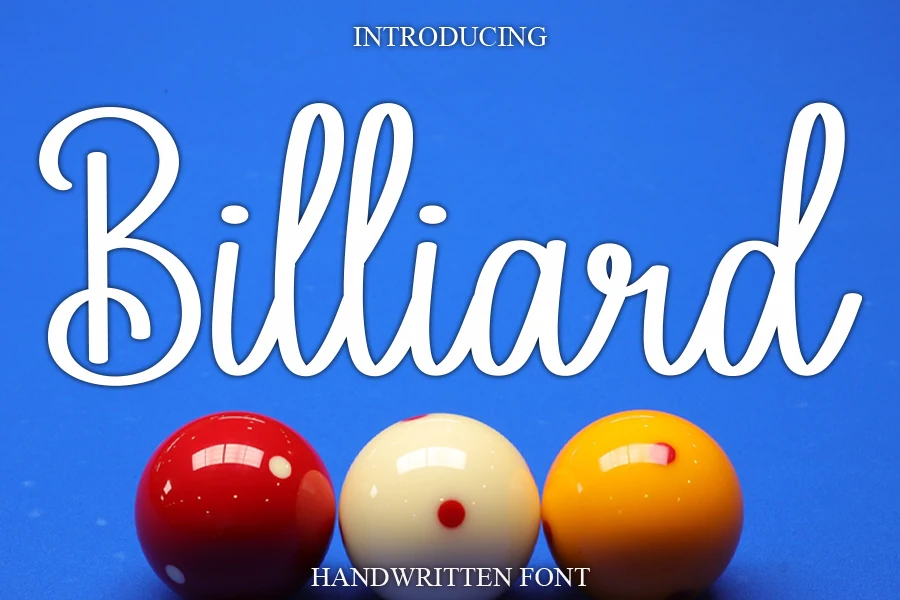
Best For: logos, wedding designs, invitations, fashion branding
Billiard Font has a smooth cursive rhythm with slim upright stems, rounded joins, and tall looping ascenders that give the wordmark a soft but polished profile. The strokes stay even enough to read cleanly, while the oversized capitals add the decorative pull expected from Script Logo Fonts.
Use it where the lettering can act as the main signature: logos, wedding stationery, greeting cards, fashion marks, or promotional headers. Its connected forms need moderate letter spacing rather than tight tracking, and the lighter stroke contrast works best against calm backgrounds or with a shadow that preserves the thin inner curves.
Rattesh Font
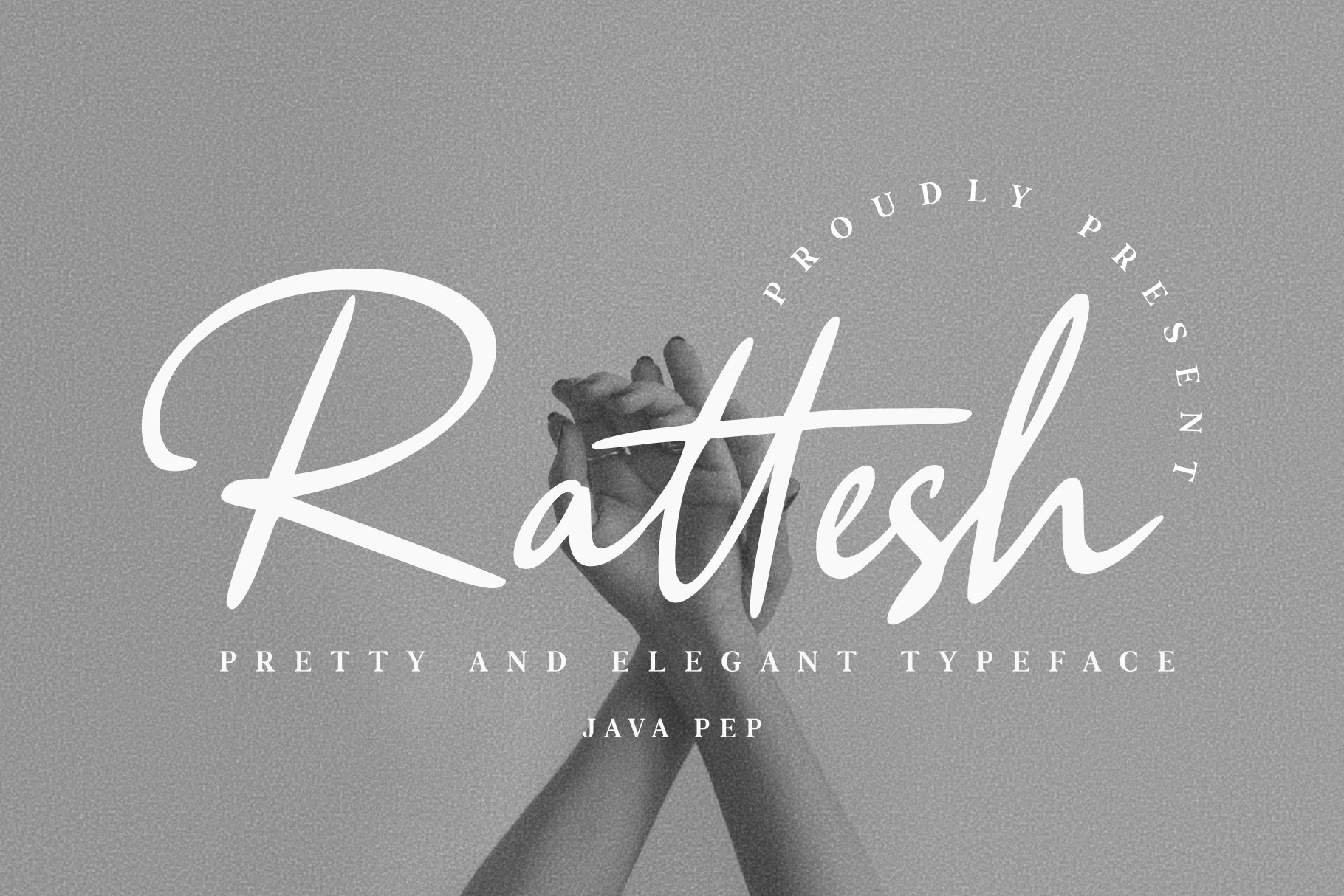
Best For: logos, packaging, headlines, quotes
Rattesh Font has a refined handwritten look with a broad opening capital, long sweeping strokes, and airy joins that keep the script graceful rather than crowded. The tall ascenders and extended crossbars give it the polished presence people expect from Script Logo Fonts, while the smooth rhythm helps short names feel composed and intentional.
Its ligatures and alternate forms make it easier to shape cleaner word combinations, which matters when a logo or headline needs a more custom flow. Keep it at display size and give the letters room to breathe—this style is strongest in short phrases, packaging, quotes, and branding where the elegant silhouette stays clear.
Bottega Font
Best For: logos, social media graphics, book covers, short phrases
Bottega Font has a bold classic script style with relaxed handwritten curves, a large looping capital, and a sweeping underline that gives the word a finished signature shape. Its smooth joins and broad strokes make it useful for Script Logo Fonts where the mark needs warmth without losing readability.
The font is strongest in short titles, logo names, social posts, and book-cover lettering where the long descender can become part of the composition. Pair it with a plain sans or serif and keep the lower swash uncrowded, since that curve does much of the visual work.
Chasterlize Script Font
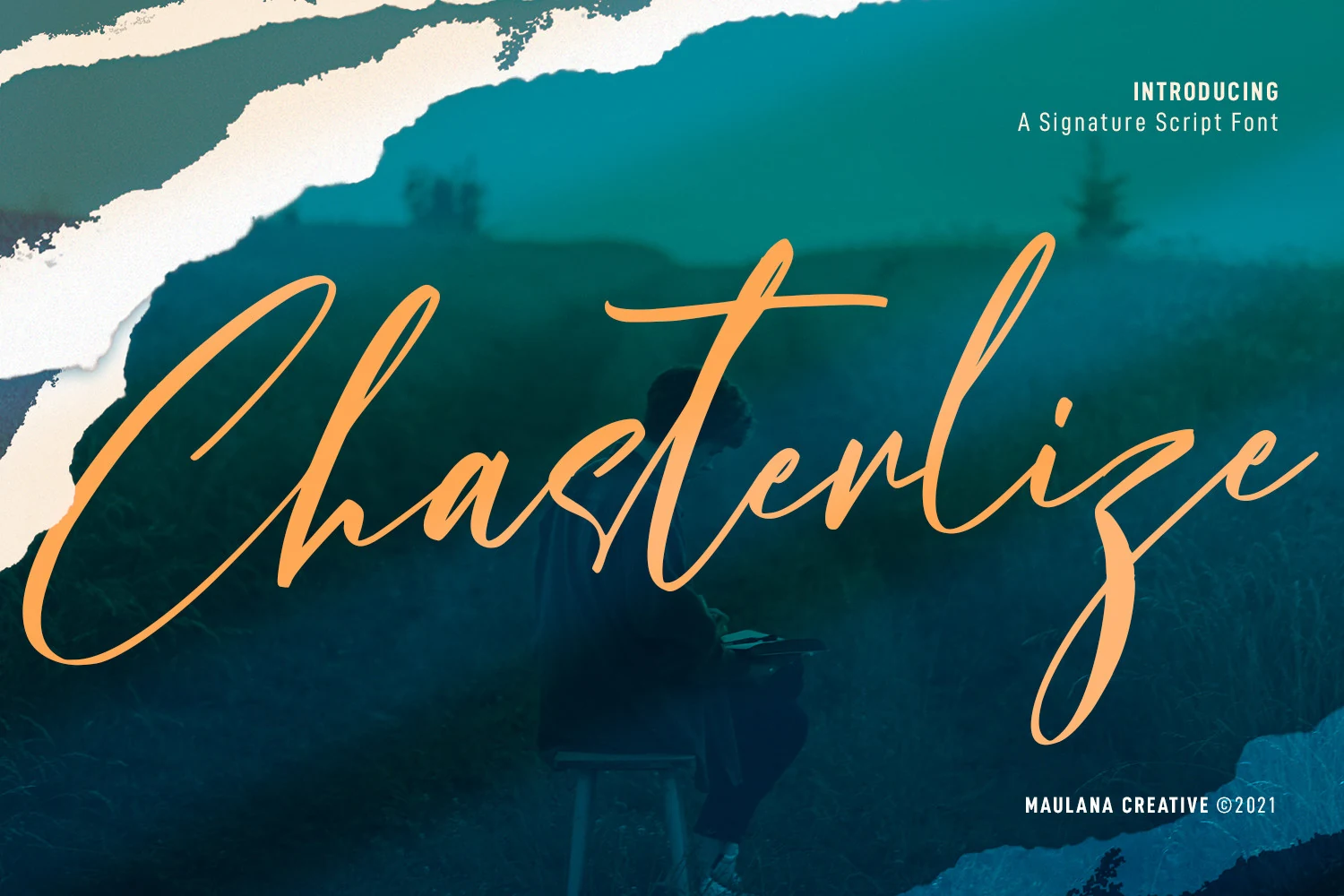
Best For: logos, social media graphics, book covers, short phrases
Chasterlize Script Font has a slanted signature style with long entry strokes, tall looped ascenders, and a narrow handwritten rhythm that feels loose but controlled. Its regular stroke contrast keeps the lettering clean, giving Script Logo Fonts a more personal and editorial look than heavier brush scripts.
The included ligatures and alternates help refine awkward joins, which is useful when shaping logo names, title graphics, or social media headers. Keep it large enough for the thin strokes to hold up, and leave wide side margins so the sweeping capital and extended final letters do not feel clipped.
Krispiest Signature Font
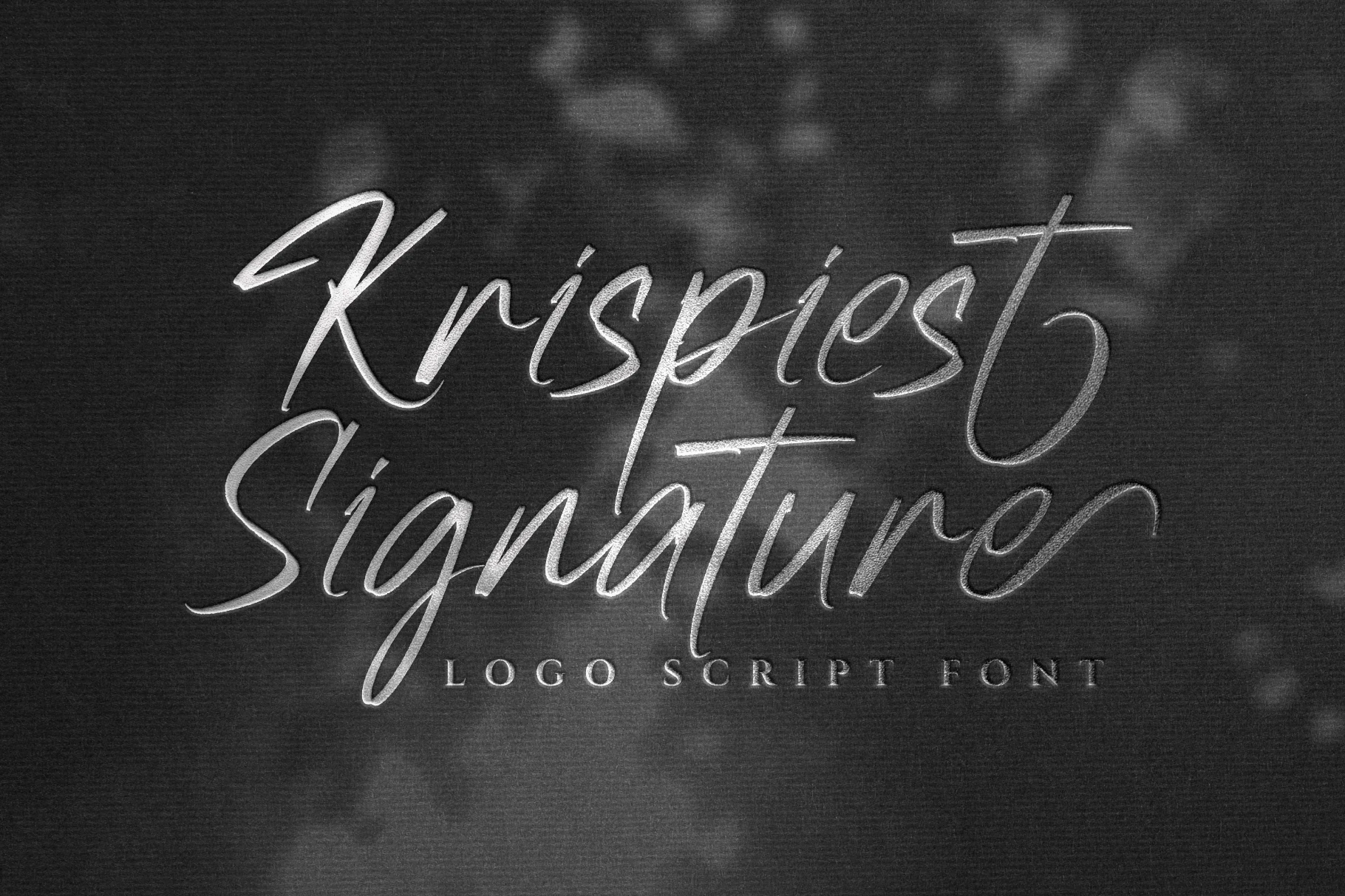
Best For: logos, branding, business cards, product labels
Krispiest Signature Font has a narrow handwritten rhythm with long entry strokes, high ascenders, and loose brush-like curves. The letters feel quick and personal rather than polished into formal calligraphy, which gives Script Logo Fonts a more direct signature-style presence.
Its all-caps construction keeps the word shape distinctive, but the thin strokes and extended swashes need clear contrast behind them. Use it where the logo or name can sit as the main mark, with tighter supporting text kept separate so the signature line does not lose its edge.
Black Pen Script Font
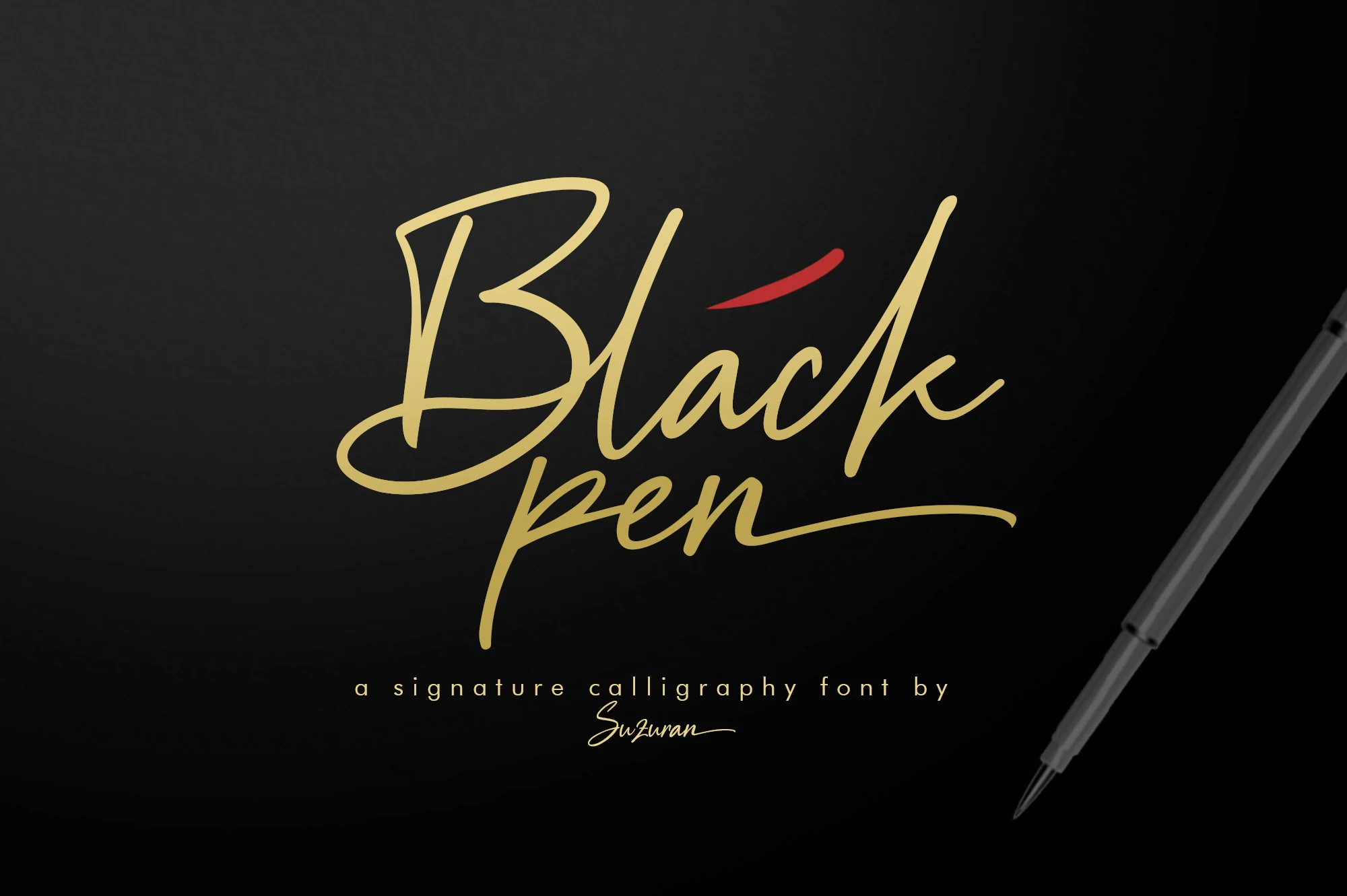
Best For: logos, personal branding, business cards, wedding designs
Black Pen Script Font has a loose signature structure with tall loops, quick angled strokes, and a sweeping baseline tail. The lettering feels handwritten rather than decorative-heavy, giving Script Logo Fonts a personal mark style that works well when the name itself needs to carry the identity.
Its open spacing keeps the thin calligraphy strokes readable, but the long swashes need room at the edges of a layout. Use it with strong background contrast and compact supporting type, especially for logos, posters, or wedding stationery where the script should remain the main visual line.
Bold & Brush Script Logo Fonts
These heavier handwritten scripts use broad strokes, dense curves, and strong contrast for packaging, posters, headline logos, and brands that need immediate visual weight.
Sarling Font
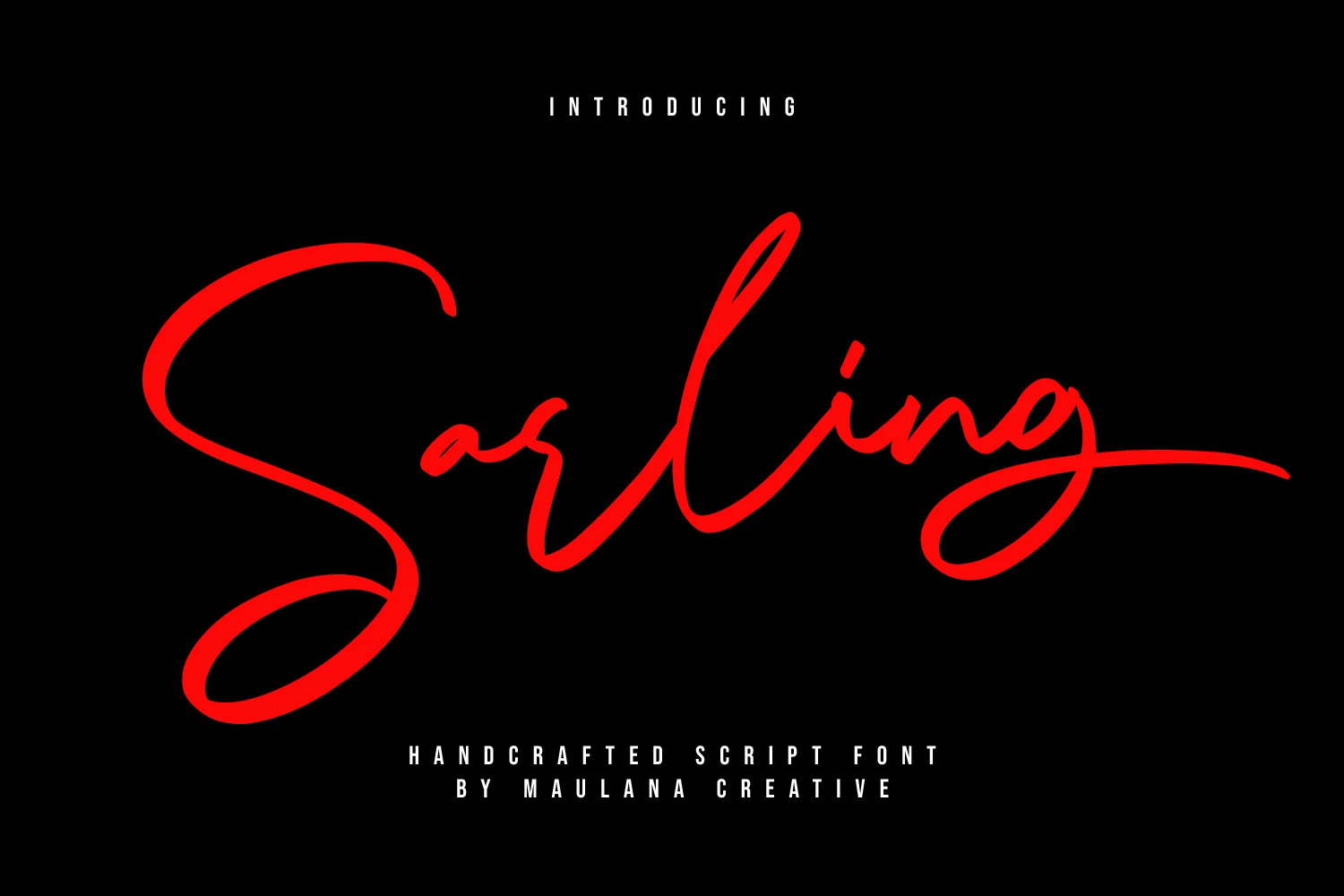
Best For: logos, social media graphics, book covers, headlines
Sarling Font is a loose monoline script with a fast signature motion, oversized entry swashes, and narrow connecting strokes that make the word feel fluid and dramatic. Its high, looped ascenders and extended baseline strokes give Script Logo Fonts a more personal, handwritten edge without turning the letterforms heavy.
Use it for logo marks, title cards, book covers, and social media headers where one word can carry the composition. The long swashes need generous horizontal space, so avoid tight containers and pair it with compact secondary text to keep the hierarchy clean.
Antique Vintage Font
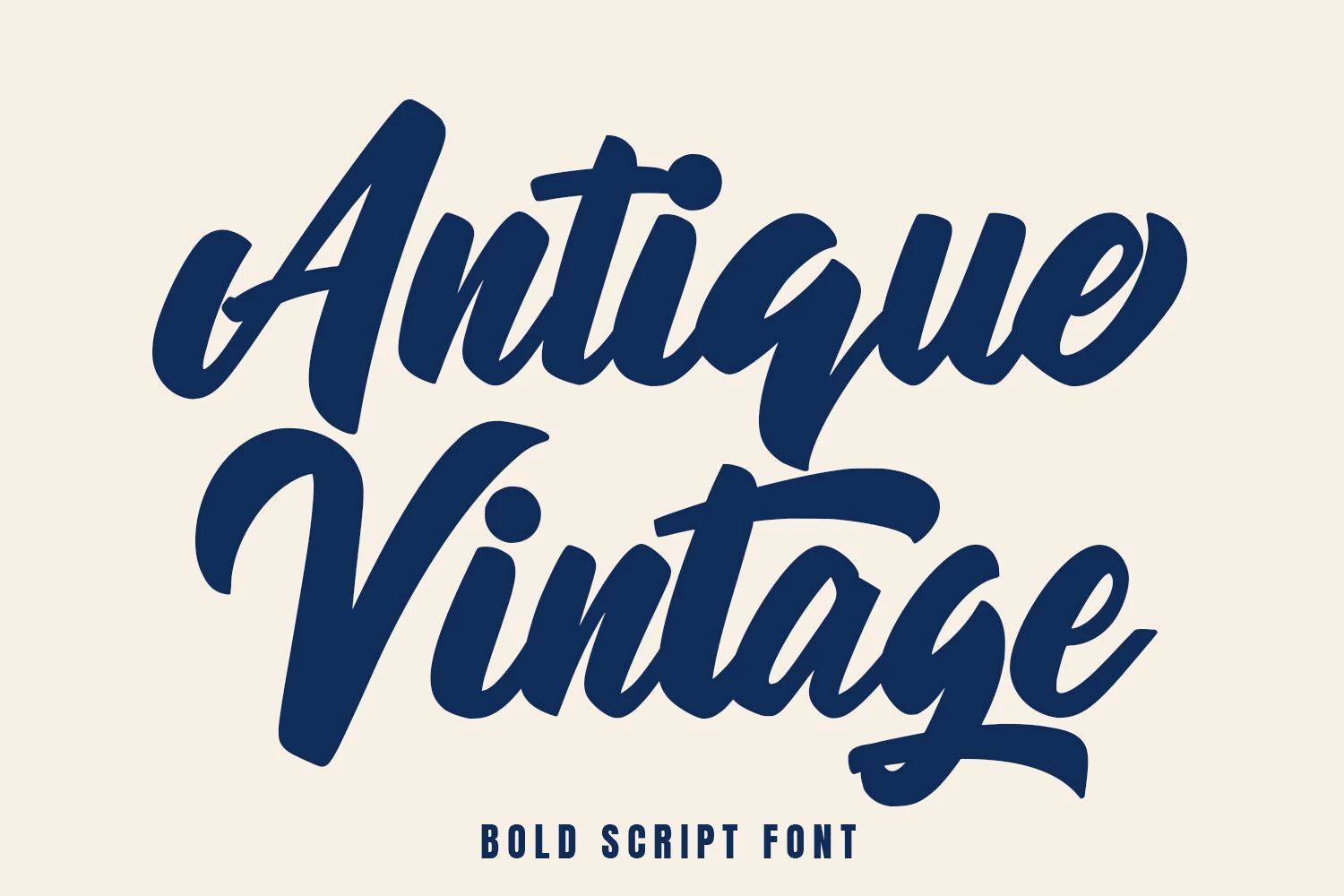
Best For: logos, posters, signage, T-shirts
Antique Vintage Font leans into a bold brush-script look with thick connected strokes, steep diagonals, and compact counters that keep the lettering punchy at a glance. The oversized capitals and tight rhythm give it the kind of presence that works well in Script Logo Fonts, especially when the wordmark needs to feel direct rather than delicate.
Because the strokes are so weighty, it performs best in short names, packaging, posters, or signage where the silhouette stays clear. Give it enough room around the swashes and pair it with a plain secondary face, so the handwritten flow stays dominant without making the layout feel crowded.
Brittney Script Font
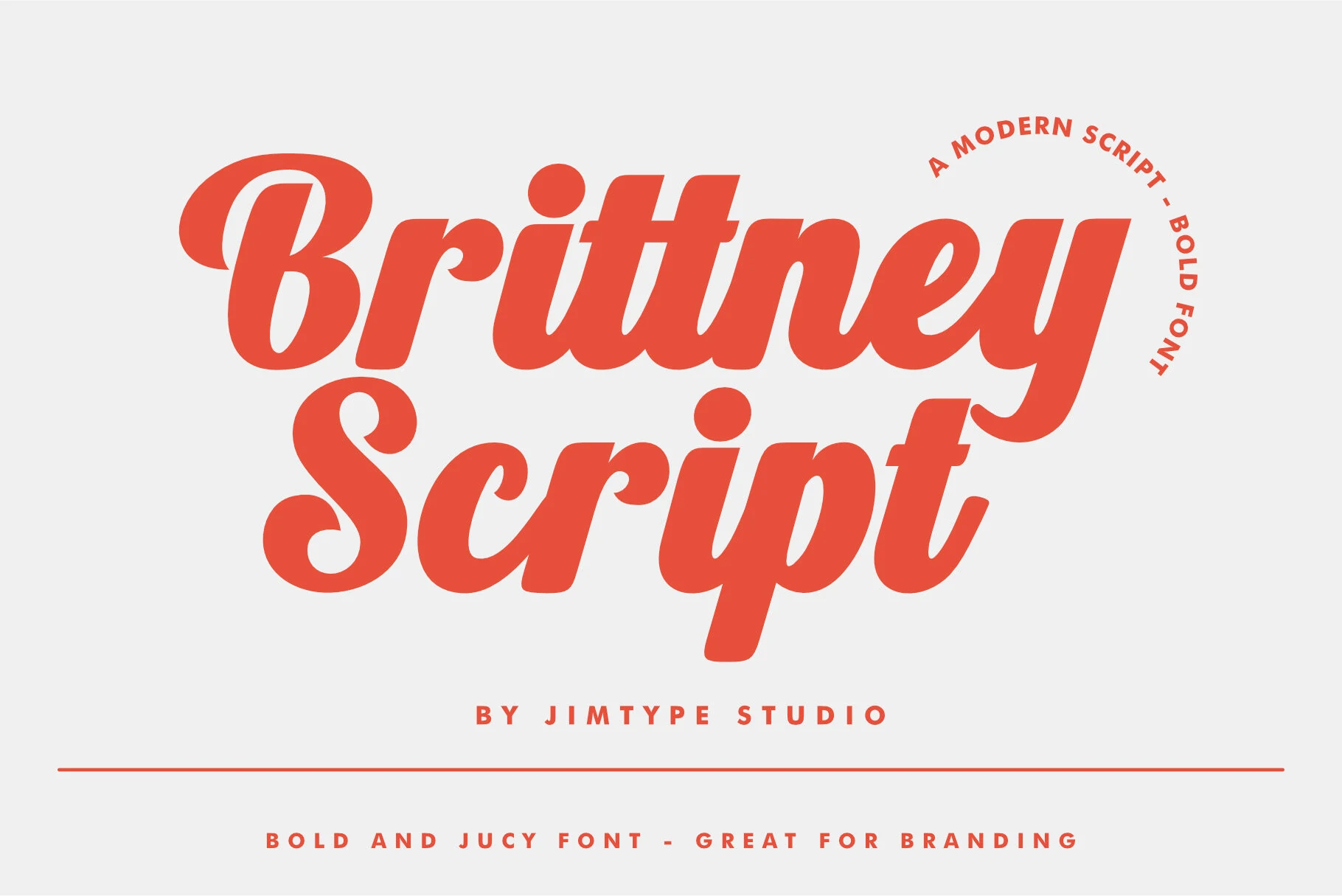
Best For: logos, branding, headlines, bold designs
Brittney Script Font has a thick, rounded script build with compact spacing, soft terminals, and a smooth forward slant that keeps the lettering bold without feeling stiff. The heavy shapes give Script Logo Fonts instant presence, so even short words read with strong contrast and easy visibility.
It works especially well when branding needs one confident line rather than delicate detail. Use it for logos, packaging, or headline-style graphics, and pair it with a lean sans serif so the wide curves and dense rhythm stay in control of the hierarchy.
Magnitude Font
Best For: logos, branding, packaging, social media graphics
Magnitude Font uses a heavy connected script with wide rounded strokes, a firm dark outline, and a long baseline swash that turns the word into a compact logo shape. The letters feel bold and athletic rather than delicate, which gives Script Logo Fonts a strong label-style presence.
Use it for logos, packaging, magazine-style titles, and social posts where the lettering needs to read quickly from one dominant line. Keep the surrounding layout simple and avoid tight cropping, since the underline and thick contour need space to preserve the script’s rhythm.
Advocate Script Font
Best For: logos, packaging, posters, social media graphics
Advocate Script Font has a bold handlettered look with rounded weight, compact counters, and long swashes that turn each word into a solid graphic shape. The thick outline in the preview makes those curves feel especially crisp, and that neat slanted rhythm suits Script Logo Fonts that need presence without looking stiff.
Its alternates help smooth awkward joins and give short words a more custom finish, which is useful when building logos, packaging, or poster headlines. Keep supporting text simple and leave room around the end swashes, because the script carries the hierarchy best when its wider strokes are not boxed in.
Megie Ceyal Font
Best For: logos, social media graphics, movie titles, book covers
Megie Ceyal Font uses thick rounded strokes, soft terminals, and generous looped descenders to create a bold script with real visual weight. The letters connect smoothly and stay open enough to read quickly, which gives Script Logo Fonts a fuller, more poster-like presence than a delicate signature style.
Because the shapes are wide and compact at the same time, it works best when the wordmark or title needs to dominate the layout. Let it carry the main headline, then keep supporting text simpler and narrower so the heavy rhythm of the script stays clean in logos, covers, and social graphics.
Amiley Font
Best For: logos, social media graphics, book covers, display text
Amiley Font has a broad handmade script style with a strong entry stroke, slanted movement, and smooth connected letters. The thick white shapes in the preview show why it can work for Script Logo Fonts that need a clear handwritten identity rather than a thin signature mark.
The large capital and long descender give the word shape plenty of drama, so spacing matters more than decoration. Keep the surrounding layout open, use high contrast behind the strokes, and let simpler supporting text handle secondary details in covers, social graphics, or logo compositions.
Hoolystars Script Font
Best For: logos, social media graphics, posters, expressive designs
Hoolystars Script Font has a fast slanted brush rhythm, with tall entry strokes, textured edges, and a long underline that cuts through the composition. The letters stay light and energetic, giving Script Logo Fonts a more casual, performance-driven feel than a polished signature script.
Its ligatures and swashes help the word flow as one connected mark, but they need horizontal room to avoid crowding the final shape. Use strong contrast behind the yellow-style strokes and keep supporting text compact so the brush movement remains the clear focal point.
Scriptonite Font
Best For: logos, branding, headlines, masculine designs
Scriptonite Font takes the connected rhythm of a script and rebuilds it with hard angles, beveled corners, and almost no soft curves. That rigid construction gives Script Logo Fonts a tougher, badge-like presence, with letterforms that feel engineered rather than handwritten.
The extended baseline bars and compact joins make it strongest in short names, headers, and marks where the silhouette can stay intact. Give it space around the outline and avoid long crowded lines, since the sharp strokes read best when the word itself is treated as the main graphic element.
Retro & Vintage Script Logo Fonts
These nostalgic scripts lean on sign-painter curves, swashes, shadows, and old-school rhythm for merch, badges, labels, signage, and throwback brand identities.
Angela Heart Font
Best For: logos, posters, T-shirts, retro designs
Angela Heart Font has a chunky retro script look with rounded terminals, deep curves, and oversized swashes that give every word a buoyant, animated rhythm. The thick silhouette and playful flourishes make it a strong fit for Script Logo Fonts, especially when you want the lettering to carry the mood on its own.
This is a display-first style, so it works best in short names, poster headlines, and T-shirt graphics where the bold shapes stay clear. Pair it with a plain supporting font and leave enough spacing around the longest loops, since the energetic letterforms can crowd tighter layouts fast.
Boardley Script Font
Best For: logos, branding, posters, retro designs
Boardley Script Font brings a mid-century advertising feel through thick connected letters, slanted movement, and a strong shadow layer that makes the wordmark feel dimensional. The rounded script forms stay bold and compact, giving Script Logo Fonts a more industrial, sign-painted character than a delicate handwritten style.
Its two-layer construction is useful when a logo, label, or poster needs depth without rebuilding the effect manually. Keep supporting text narrow and simple, because the main lettering already carries heavy contrast, an extended underline, and dense overlapping shapes.
Singtton Vintage Font
Best For: logos, posters, T-shirts, vintage designs
Singtton Vintage Font has a thick retro script build with rounded joins, broad curves, and a long sweeping swash that gives the lettering instant throwback character. The connected shapes feel compact and lively, making it a natural match for Script Logo Fonts that need personality before any extra decoration.
Its bold silhouette works best in short names, merch graphics, posters, and badge-style branding where the script needs to stay readable at a glance. Let it lead the hierarchy, then keep supporting text narrower and simpler so the heavy curves and tail flourishes have space to shape the layout.
Amibas Font
Best For: logos, T-shirts, signage, retro designs
Amibas Font leans into a sporty retro script with thick rounded strokes, a slanted rhythm, and a long baseball-style tail that anchors the word like a badge. The layered shadow and dense curves give Script Logo Fonts a punchy 70s–80s feel, so even a short name lands with real visual weight.
It suits apparel marks, headline graphics, and throwback signage where the lettering should do most of the branding work. Keep it on short words or tight title hierarchies, and pair it with a simple secondary face so the broad swash and heavy drop-shadow effect stay crisp instead of crowding the layout.
Starlake – Retro Script Font
Best For: logos, branding, merch design, retro designs
Starlake – Retro Script Font leans into a classic sign-painter mood with thick rounded strokes, a confident forward slant, and a long finishing swash that gives the lettering real motion. It has the kind of weight that helps Script Logo Fonts hold attention fast, especially when a wordmark needs personality without adding extra decoration.
The alternates are the practical strength here, since they make it easier to refine the rhythm of each word and keep repeated letters from feeling stiff. Use the sweeping tail as part of the composition rather than squeezing it into a tight space, and pair it with compact secondary text so the main script keeps its retro punch.
Racole Font
Best For: logos, branding, packaging, retro designs
Racole Font has a chunky monoline build with rounded joins, oversized counters, and a long underline sweep that turns the word into its own badge. The bubbly structure pushes Script Logo Fonts toward a brighter retro direction while keeping the lettering friendly and easy to read.
Because the stroke weight stays even and wide, Racole holds up well on packaging and headline-style branding where the name needs instant shape. Short words look strongest here; let the underline breathe and pair it with compact secondary text so the playful rhythm stays clean instead of crowded.
Oldport Script Font
Best For: logos, branding, vintage designs, nostalgic designs
Oldport Script Font has thick, rounded handwritten strokes with a slightly uneven rhythm that gives the lettering a familiar, lived-in feel. The broad curves and soft terminals lean more casual than polished, which makes it a strong option when Script Logo Fonts need warmth instead of a slick finish.
It reads best in short names and headline-length phrases, where the chunky shapes can keep their charm without feeling crowded. Pair it with a simpler secondary face and leave a bit of breathing room around the letters, especially if you want the retro mood to stay clear on posters, packaging, or branding.
Milestone Font
Best For: logos, branding, signage, vintage designs
Milestone Font leans hard into vintage sign painting, with a dense connected script, textured fills, and a wide underline swash that gives the wordmark a baseball-era silhouette. That strong baseline and compact stroke rhythm make it a natural fit for Script Logo Fonts with a nostalgic, label-driven feel.
The useful part is its duo structure: let the script handle the hero name, then use the serif companion for secondary lines so the layout keeps contrast without losing period character. It works especially well when you want a badge, bar mark, or coffee-shop identity to feel rooted in older lettering traditions.
Casual & Monoline Script Logo Fonts
These smoother casual scripts use even strokes, open spacing, and relaxed handwritten flow for friendly logos, social posts, quotes, cards, and approachable title designs.
Bizare Love Monoline Script Font
Best For: logos, social media graphics, book covers, short phrases
Bizare Love Monoline Script Font has a relaxed monoline flow with a tall looping capital B, rounded connections, and a long descending stroke that gives the lettering a loose handwritten rhythm. The even stroke weight keeps it clean and approachable, making it a natural fit for Script Logo Fonts that need personality without heavy ornament.
It works best in logos, social posts, movie or book-style titles, and other short lines where the sweeping forms can stay visible. Because the strokes are smooth and consistent, pair it with a compact sans serif and leave extra room below the baseline so the long diagonal swash does not crowd the layout.
Melodiano Font
Best For: logos, social media graphics, book covers, headlines
Melodiano Font has a tall handcrafted script style with narrow proportions, soft curves, and slightly uneven stroke edges that keep it feeling drawn by hand rather than polished into a rigid display face. That condensed rhythm gives Script Logo Fonts a more personal tone while still holding enough weight to stand out.
It works best when the lettering leads the composition, especially in logos, social graphics, and title treatments. The slim vertical forms help longer words stay compact, but it looks strongest at medium to large sizes where the subtle stroke texture and small shadow details can stay visible.
Good Day Script Font
Best For: logos, branding, invitations, quotes
Good Day Script Font has a relaxed handwritten flow with rounded terminals, soft curves, and open spacing between the words. The strokes are clean enough for easy reading, giving Script Logo Fonts a casual mark style that feels friendly without becoming overly decorative.
The simple underline works as a light anchor, so the lettering can sit neatly in logos, quotes, cards, or poster headers. Keep the surrounding type restrained and avoid compressing the spacing; the charm comes from its loose rhythm and clear, unforced letter shapes.
Conclusion
For refined identities, start with the elegant signature scripts. For stronger packaging, posters, and merch, use the bold brush or retro categories. For friendly brands and lighter social graphics, the casual monoline options are easier to read and simpler to pair.